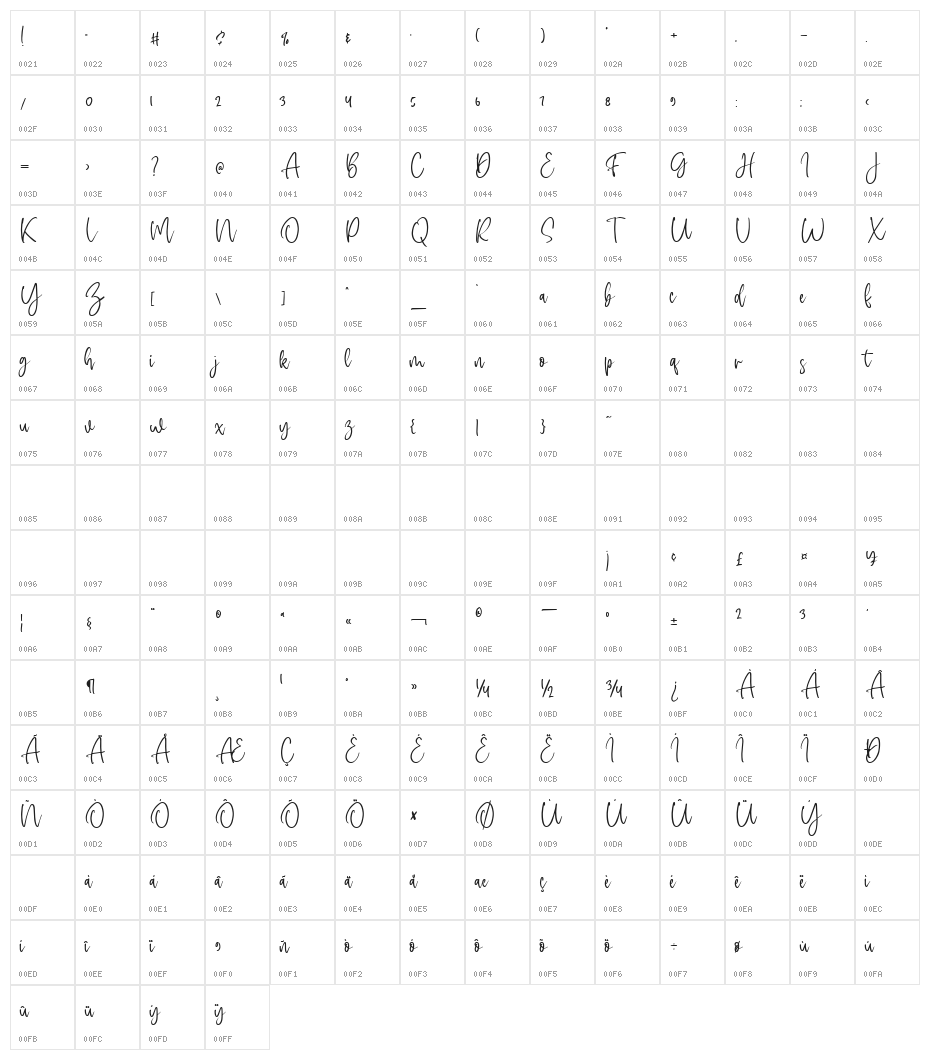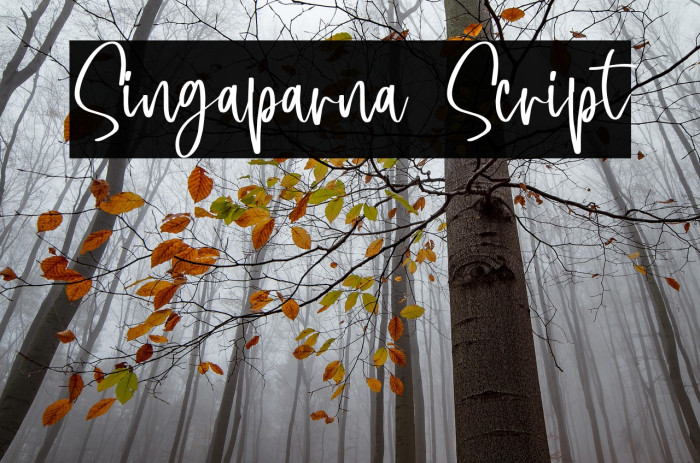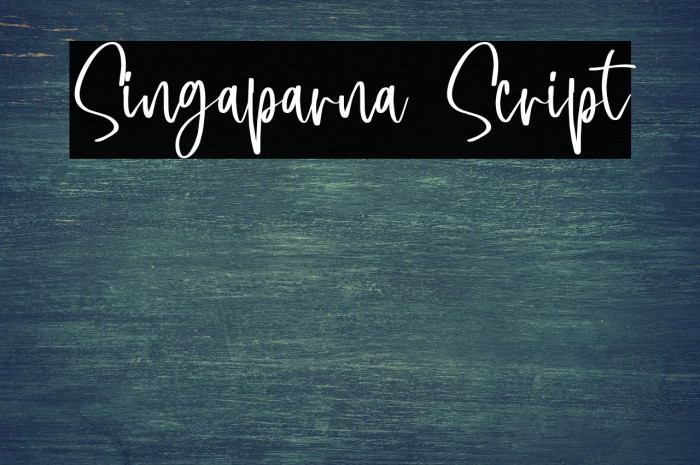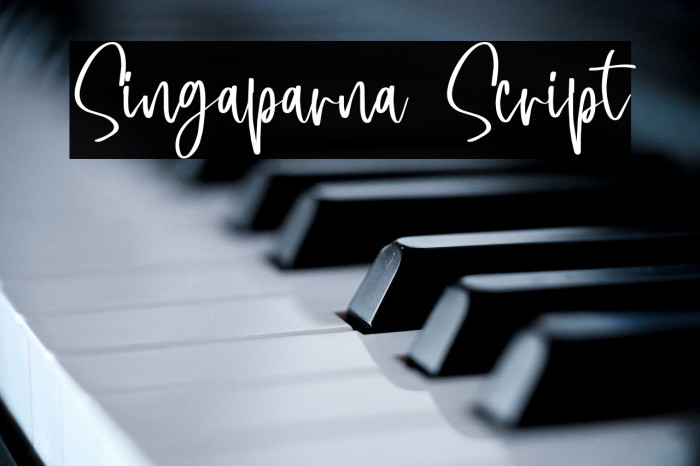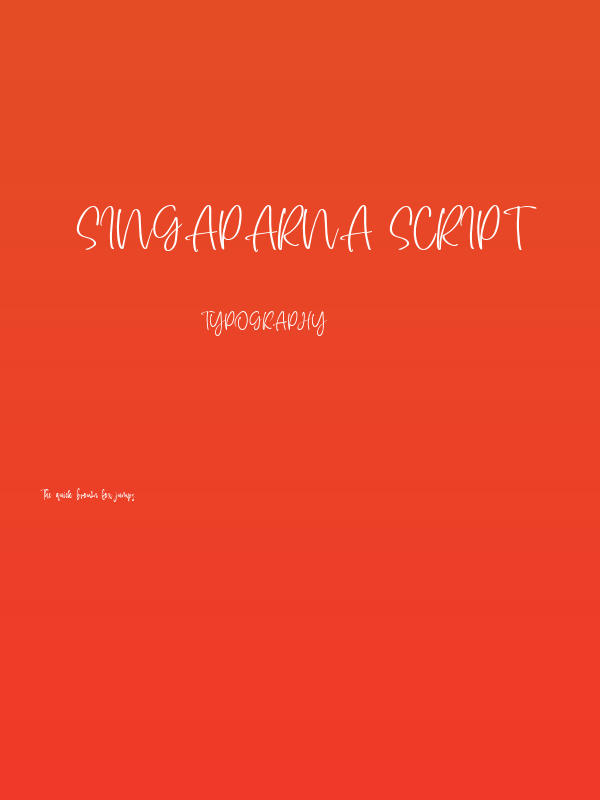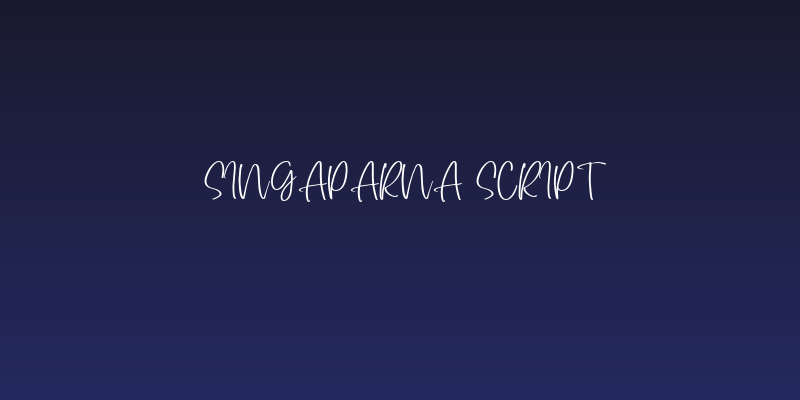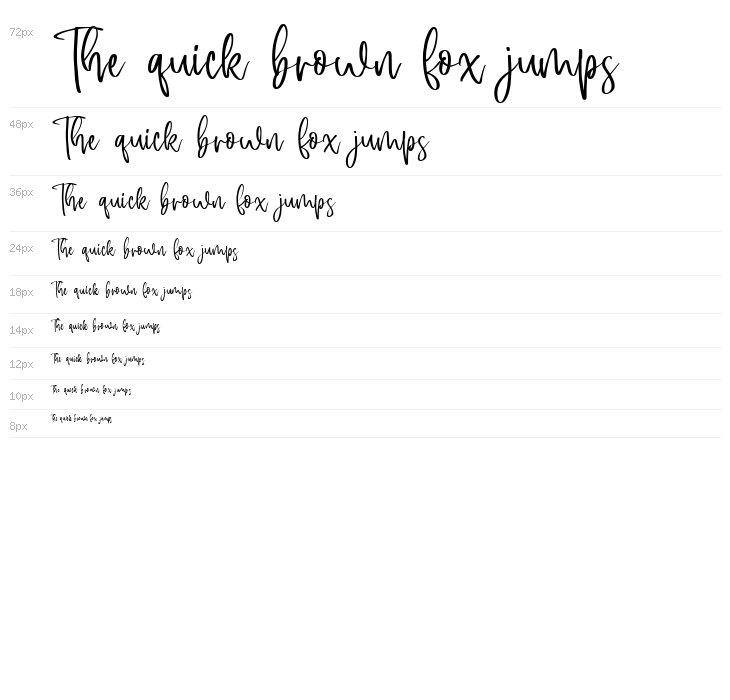
Singaparna Script Font
Singaparna Script Description
This font exudes a playful and elegant script style, characterized by its fluid, cursive strokes and a handwritten aesthetic. The uppercase letters are bold and sweeping, with a graceful flow that adds a touch of sophistication. The lowercase letters maintain a consistent style, offering a smooth transition between characters. Numbers and special characters are crafted with the same attention to detail, ensuring a cohesive look. This font is perfect for projects that require a personal touch, such as invitations, greeting cards, or branding materials.
| Overall Style | Elegant, Handwritten |
| Use Case | Logos, Invitations, Greeting Cards |
| Proposed Projects | Ideal for wedding invitations, greeting cards, branding, and logo design. |